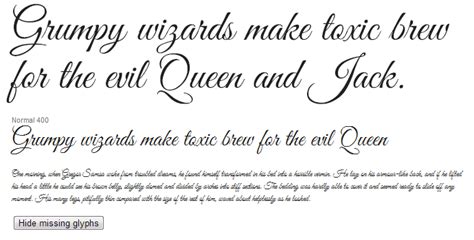
Google Fonts Handwritten Script - The 10 Best Script and Handwritten Google Fonts | Design Shack / Learn how to add more font options to google sheets, slides, or docs.. Fonts like noto are helping minority language speakers digitize & preserve more than 800 languages with support for 146 scripts. Click on the google fonts link to use the fonts on your website. You can use these fonts to create custom styles. Learn how to add more font options to google sheets, slides, or docs. Script and handwritten fonts are in good use today, and designers are carving fun n' fancy effects out of their designs using them.
A good script font is hard to find.
Script and handwritten fonts are in good use today, and designers are carving fun n' fancy effects out of their designs using them.
Click on the google fonts link to use the fonts on your website. Script and handwritten fonts are in good use today, and designers are carving fun n' fancy effects out of their designs using them. With this post, you can skip the work of sorting through the junk, and cut straight to the best script and handwritten google fonts that are readable, attractive and. You can use these fonts to create custom styles. These are the 40 best free web fonts available on google fonts, in my humble opinion. Click on the image or font name to see examples of websites using the fonts in the wild. One billion script by topan sofyan. Google fonts now supports variable fonts. As google font library is the biggest source providing free web fonts with a big variety, we collected some best handwritten and script web fonts from it to make your font. How to use google fonts. Последние твиты от google fonts (@googlefonts). Added by zemin (18 style). Making the web more beautiful, fast, and open through great typography.
Fonts like noto are helping minority language speakers digitize & preserve more than 800 languages with support for 146 scripts. Click on the google fonts link to use the fonts on your website. You can use these fonts to create custom styles. As google font library is the biggest source providing free web fonts with a big variety, we collected some best handwritten and script web fonts from it to make your font. With this post, you can skip the work of sorting through the junk, and cut straight to the best script and handwritten google fonts that are readable, attractive and.
Learn how to add more font options to google sheets, slides, or docs. How to use google fonts. Script and handwritten fonts are in good use today, and designers are carving fun n' fancy effects out of their designs using them. First add effect=effectname to the google api, then add a special class name to the element that is going. Once you have chosen a font, click the (+) icon next to it. Fonts like noto are helping minority language speakers digitize & preserve more than 800 languages with support for 146 scripts. A good script font is hard to find. Contribute to google/fonts development by creating an account on github. Google have also enabled different font effects that you can use. These are the 40 best free web fonts available on google fonts, in my humble opinion. Click on the google fonts link to use the fonts on your website. You can use these fonts to create custom styles. Just add a special style sheet link in the <head> section and then refer to the font in the css.